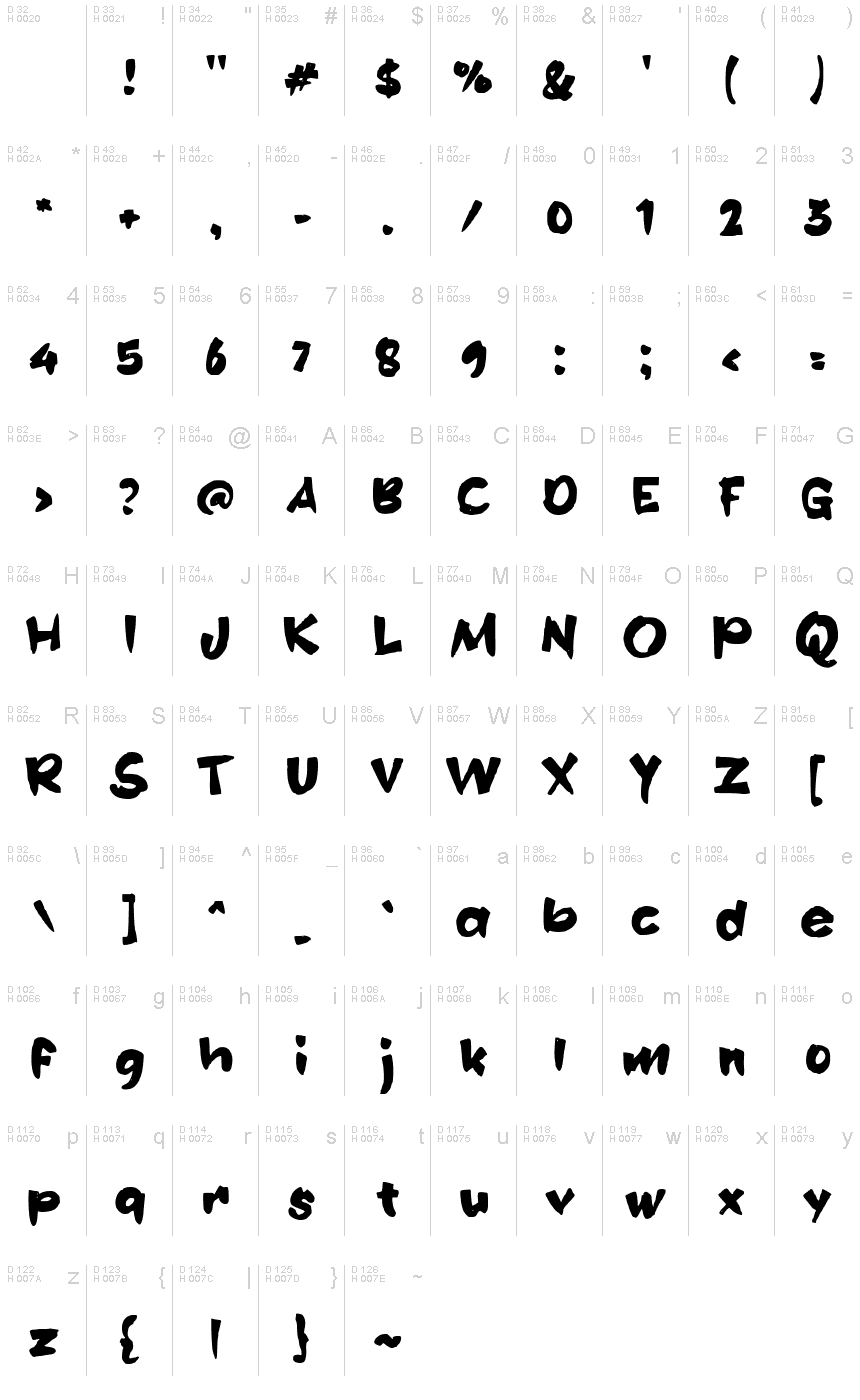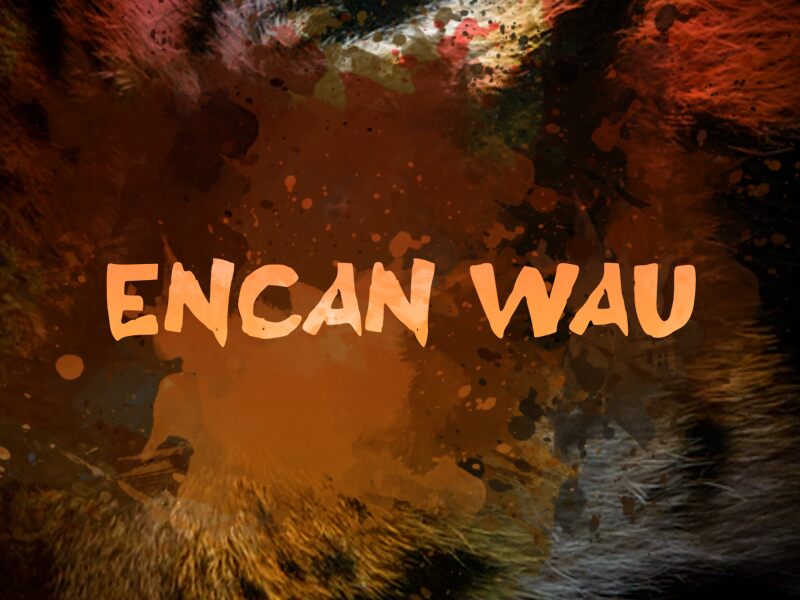
ENCAN WAU
Encan Wau is a display font designed by wep that boasts an extra-bold weight and semi-expanded width. Its unique, distorted style makes it perfect for branding projects that call for a distinct and edgy look. Whether you're designing a logo, packaging, or promotional materials, Encan Wau's bold presence won't go unnoticed. Its versatility also lends itself well to editorial design - think book covers or magazine spreads that need to stand out on the shelf. Give your project an unforgettable touch with Encan Wau's one-of-a-kind distorted style.